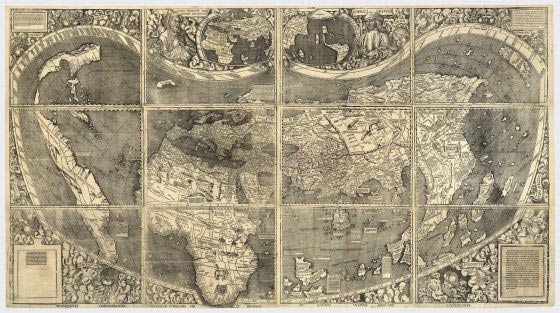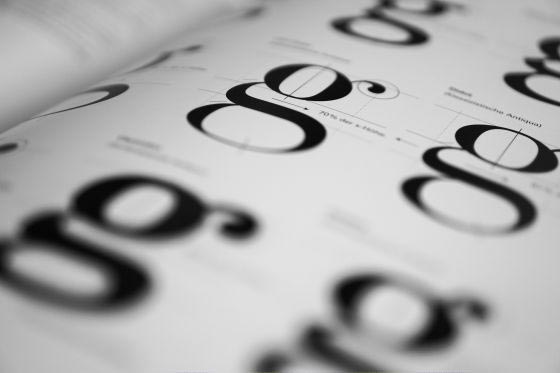
This article examines 'Font Detective' - Silent 'Heroes'. It presents the main facts, practical implications, and key points in a clearer, easier-to-follow format.
Understanding 'Font Detective'
Writing is one of the indispensable means of communication and information exchange in modern life today. However, besides the main purpose mentioned above, the writing also helped to reveal many stories behind the scenes, from helping police to track down the clues to the task of verifying the accuracy of the document. All scripts play a particularly important role. Each of us possesses the same type of writing, or fonts in each print, all contain features that cannot be mixed, and that is the premise for a department. The study specializes in research on characteristics as well as differences in each type of writing, playing an important role in many areas of life. Here, I would like to temporarily call those who are skilled in this science the 'font detectives'.
There is a famous 'font detective' operating in the field of identification as well as verifying the authenticity of rare historical documents, ancient editions containing immeasurable cultural values. That is the man named Thomas Phinney. Thomas Phinney possesses 'talent' that can detect scams or impersonation by looking at fonts and text layout. In this article, we will 'talk' to Thomas Phinney to Learn more about his mysterious and interesting work - a professional font detective.
In 2017, a man from Canada named Gerald McGoey applied for bankruptcy to his company. Bankruptcy records came years after his Ontaria-based telecommunications company failed to do business. McGoey is a wealthy man, holding many real estate, but the loss-making business has caused him to fall into debt, to sell off property to repay debt and maintain life. McGoey wants to keep the house and farm by the lake in Muskoka, these assets are entrusted to McGoey's children.
Bankruptcy records, including those related to Gerald McGoey's property, were filed with the court. Realizing the unusual thing in the important papers, the court had to "rely on" the help of Thomas Phinney, who had the nickname "font detective". Phinney was then CEO of FontLab, a business specializing in font design based in Portland, USA.
The lawyers' instincts were right, after a few days of research, Thomas Phinney quickly discovered an abnormality in McGoey's papers. Accordingly, the information in the mansion ownership document at Muskoka that McGoey gave his children shows that this requirement was made in 1995. However, the font used in the document It's Microsoft, which was published in 2007. So, a document made in 1995, but used 2007 fonts, and that's the unusual point that Thomas Phinney found. Not only that, the farm ownership file filed by McGoey also contained a contradiction that was hard to explain when the document was thought to have been completed in 2004, but used fonts'. Calibri '- until 2007 was released by Microsoft. There is obviously fraud here because even though McGoey has a working acquaintance at Microsoft and has the right to use the previous release of this font, in fact, the Calibri typeface has undergone many uses. For, in particular, once changed the digital design in 2005, thus, the use of new designed fonts since 2004 is an impossible thing to do.
The irregularities that Thomas Phinney found will be clearly stated in the trial. Of course, fonts are not the only evidence used in court proceedings, and for the case of entrepreneur McGoey, too, there are many other conflicts that must be found to clarify. The case, however, in this case, the anomaly in the use of fonts on important documents and papers will be one of the decisive factors for the end result. This is one of many papers and documents that Phinney helped clarify.
Thus it can be seen that the contribution of "font detectives" is very important in many aspects of life, especially with regard to legal disputes. There are not many people like Thomas Phinney in the world - those who own not only sophisticated eyes but also a treasure of massive knowledge about letters.
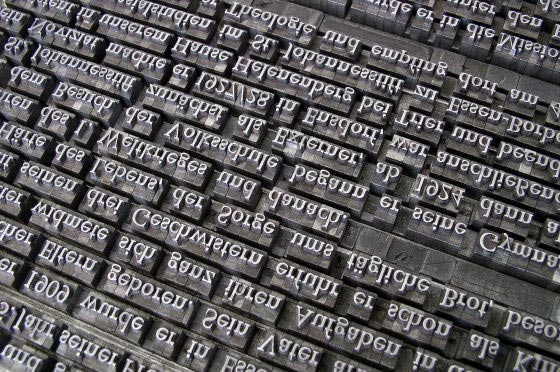
Thomas Phinney used to be a long time manager at Adobe. His work and life went away without a turning point in 1999. In that year, Adobe entangled some complicated legal-related scandals, and Adobe's attorney proposed The staff in the company asked me to study the anomalies of some documents and papers related to the incident. Prior to that suggestion, Phinney was the only individual interested in the legitimacy and integrity of the document through fonts as well as how it was printed. After the incident, Thomas Phinney realized that he was particularly interested in the way the words were presented and that this gave him a "left hand" skill unlike anyone else.
This "font detective" currently holds a master's degree in printing, and is also a master in applying design experience, working with fonts to assess the legitimacy of documents. This makes Thomas Phinney sometimes work as an experienced culture, historian, and expert, to evaluate the legitimacy of artworks and antiques with high historical value. Sometimes he turned him into a professional criminal, taking part in the success of many cases.
Add an important example of font validation. Waldseemüller map, published in 1507, is said to be the first map to accurately set the latitude and longitude of the earth, and also the first map in the world to use the name 'America' for Europe. America. Waldseemüller map can only create 1000 unique editions, one of which is a valuable special copy being kept by the Smithsonian museum. The mystery of this age-old map is that although the author has been identified, the information about who printed it and when it is printed is still a big question mark.
Why is 'Font Detective' - Silent 'Heroes' important?
'Font Detective' - Silent 'Heroes' matters because it can affect how readers understand, choose, use, or respond to the subject discussed in the article.
What should readers verify about 'Font Detective' - Silent 'Heroes'?